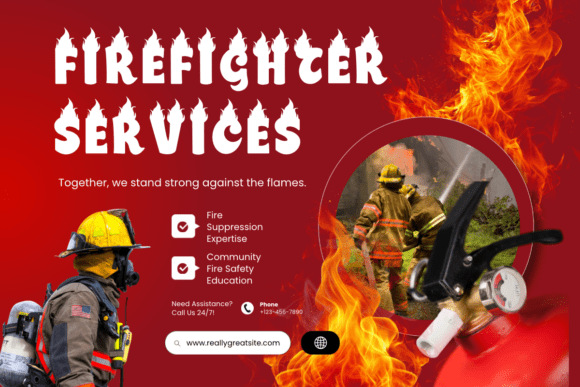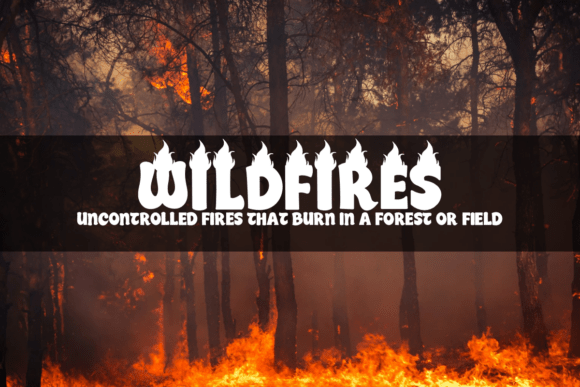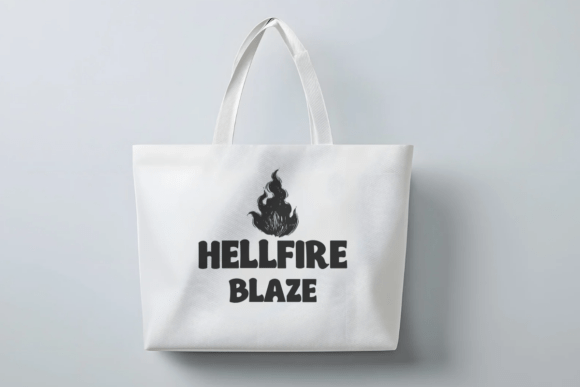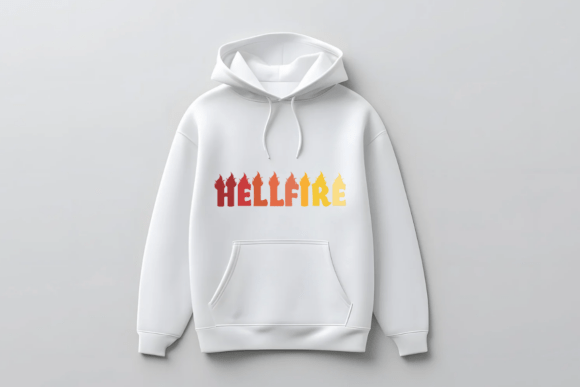
Introduction to Hellfire Blaze Font
Enter the Hellfire Blaze Font, a high-quality decorative typeface that’s ready to ignite your creativity. With its fiery charm and versatility, this design resource is perfect for jotting down reflections, crafting heartfelt greeting cards, or adding a touch of personality to your social media posts. And the best part? You can download the Hellfire Blaze Font for free, giving you endless possibilities to experiment and express yourself.
Whether you’re working on a personal project or need a design resource for a client, the Hellfire Blaze Font is an excellent choice. Its transparent background and high-quality design make it a valuable addition to any designer’s toolkit, waiting to be unleashed and add sparks to your next creative endeavor.
Key Features of Hellfire Blaze Font
- High-quality, bold font ideal for creative projects and designs
- Transparent background, allowing for seamless integration into various design elements
- Designed with a fiery, bold aesthetic, perfect for adding a dramatic touch to designs
- Supports a wide range of languages and characters, making it a versatile design resource
Honest Review: Hellfire Blaze Font
I recently had the chance to work with the Hellfire Blaze Font, and I must say it’s been a game-changer for my creative projects. This high-quality font is a must-have for any designer looking to add some edge to their work.
- What works well: ✨ The Hellfire Blaze Font is incredibly versatile, and its unique design makes it perfect for a wide range of creative projects. From logos to branding materials, this font is sure to impress.
- What works well: ✨ The transparent background option allows for seamless integration with any design, giving you complete control over the final product.
While the Hellfire Blaze Font is a solid choice for most projects, there are a few limitations to consider.
- Limitations: ⚠️ The font may not be suitable for smaller text sizes, as it can become difficult to read.
- Limitations: ⚠️ Some users may find the font’s unique design to be overwhelming or too bold for certain projects.
Overall, I’m thoroughly impressed with the Hellfire Blaze Font. Its high quality and versatility make it a valuable addition to any designer’s toolkit. If you’re looking for a free design resource that’s sure to make an impact, be sure to check this one out.
Tips for Getting the Most Out of Hellfire Blaze Font
Use the Hellfire Blaze Font in combination with other design elements to create a unique and eye-catching design. Experiment with different font sizes, colors, and styles to achieve the desired effect. Don’t forget to use the transparent background feature to make your design stand out.
Common Use Cases for Hellfire Blaze Font